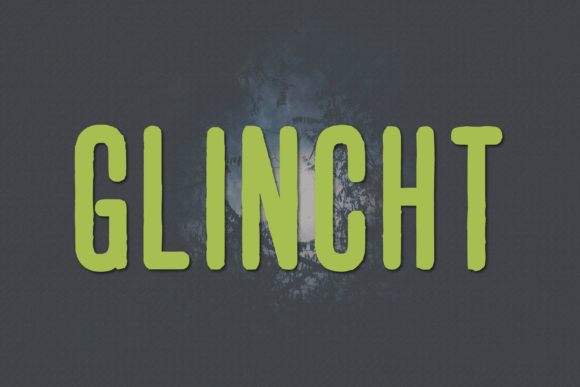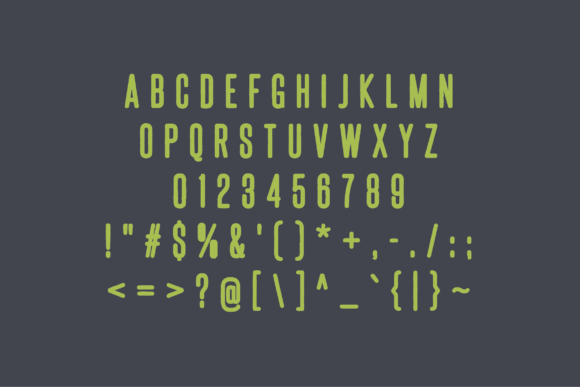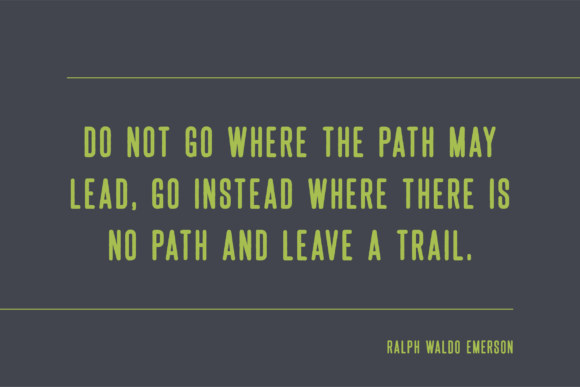
Have you ever stared at a blank screen, trying to come up with the perfect font for your next design project, only to find yourself overwhelmed by the endless options? That was me, until I stumbled upon the Glincht Font. This modern, classy sans serif typeface is a game-changer for designers, and I’m excited to share its story with you.
| 📌 Product Name | Glincht Font |
| 👤 Author | A Christie |
Glincht Font is a versatile font that’s perfect for logos, weddings, invitations, quotes, advertisements, and more. Its clean design and sleek lines make it a great choice for any project where you want to make a statement. What makes Glincht Font truly valuable for designers is its ability to elevate any design with its sophistication and elegance. Whether you’re working on a magazine, a website, or a print ad, Glincht Font is sure to impress.
Glincht Font Key Features
- Font Family: Glincht is a sans-serif font family designed for modern typography.
- Size Range: Glincht font family is available in 6 weights (Light, Thin, Regular, Medium, Bold, Black) to cater to diverse design requirements.
- Resolution: Suitable for high-resolution displays (Retina, 4K, etc.) with crisp and clear typography.
- Unique Characteristics: Glincht features a clean and geometric design, making it ideal for digital products, corporate branding, and modern publications.
Glincht Font Review
Overall, I have mixed feelings about the Glincht Font. While it has some great qualities, there are also some limitations that hold it back.
- Unique and playful personality: Glincht Font has a fun, quirky vibe that can add a lot of character to your designs.
- Good legibility: Despite its decorative nature, Glincht Font is still easy to read, making it a great choice for body text.
- High-quality rendering: The font looks great at various sizes and resolutions, which is a testament to its well-crafted design.
- Limited compatibility: Glincht Font is only available in a limited range of weights and styles, which can make it less versatile than other fonts.
- No ligatures: While Glincht Font is generally easy to read, the lack of ligatures can make it look a bit disjointed at times.
- May not be suitable for formal designs: Glincht Font’s playful personality may not be the best fit for formal or professional designs.
Overall, I think Glincht Font is a great choice for designers who want to add some personality to their projects. However, its limitations mean it may not be the best fit for every design.
Tips for Getting the Most Out of Glincht Font
To get the most out of Glincht Font, consider the following tips:
- Use Glincht Font for creative and artistic projects.
- Pair Glincht Font with bold, contrasting colors.
- Experiment with different font sizes and styles.
Glincht Font is commonly used for:
- Event branding and marketing materials.
- Artistic and creative projects.